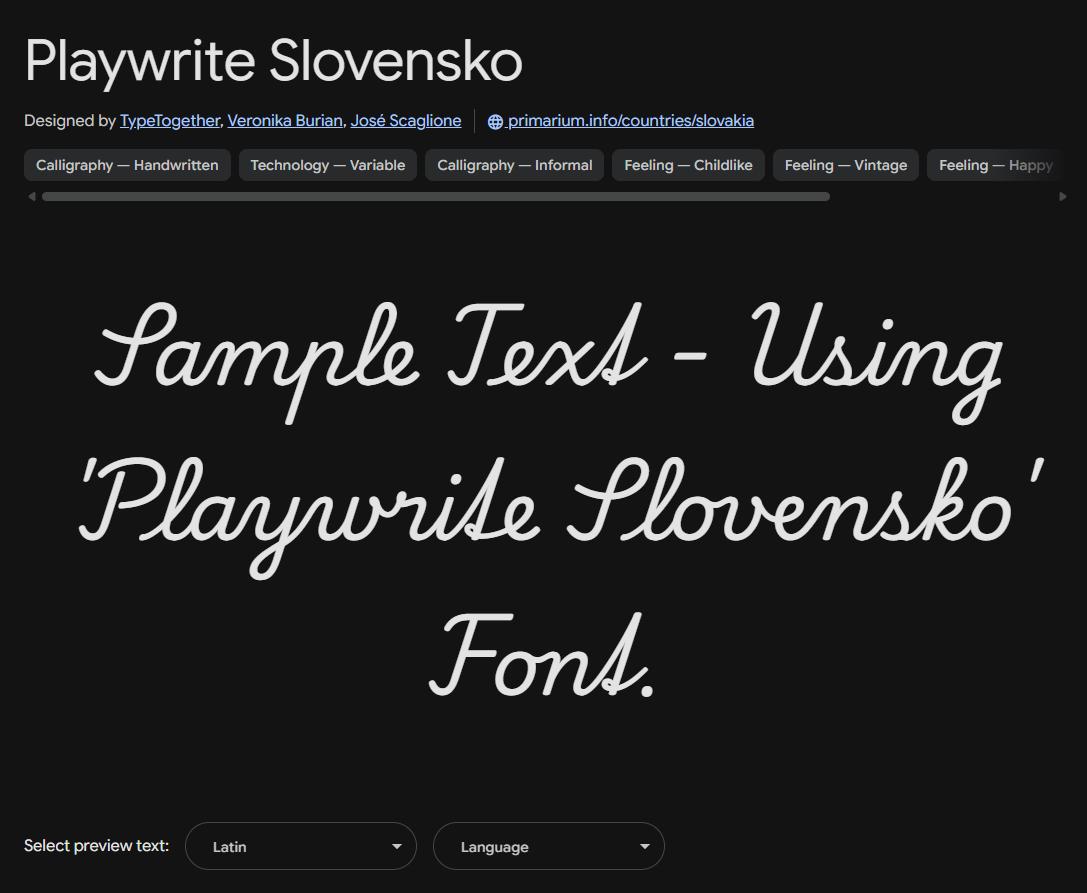
Playwrite Slovensko, a specialized typographic solution engineered by TypeTogether's Veronika Burian and José Scaglione, functions as a sophisticated interpolation model that bridges the gap between traditional Slovak primary school handwriting standards and modern digital infrastructure. Operating on a single-axis variable framework, the typeface leverages advanced OpenType features to simulate the rhythmic flow of manual cursive while maintaining the technical rigor required for high-fidelity screen rendering. By digitizing regional pedagogical scripts into a scalable, semantically rich format, Playwrite Slovensko optimizes educational accessibility, offering a dynamic typographic system where weight distribution and stroke connectivity are precisely tuned to reflect the evolving needs of contemporary digital literacy and instructional design.
The Playwrite Slovensko font family functions as a sophisticated intersection of modern variable technology and traditional pedagogical models, meticulously capturing the informal calligraphy of Slovakian primary education through its authentic handwritten structure. This variable typeface leverages dynamic interpolation to maintain a rugged yet fluid aesthetic, effectively bridging the gap between vintage classroom aesthetics and contemporary digital accessibility. The design architecture exudes a playful and happy feeling, characterized by its childlike spontaneity and optimistic stroke modulation that mirrors the tactile nature of early literacy development. By utilizing advanced OpenType features to simulate the organic variations of manual ink application, Playwrite Slovensko transforms digital interfaces into an evocative, rugged display of human-centric design, ensuring its joyful and informal calligraphic roots remain preserved within a high-performance typographic framework.
Playwrite Slovensko, a variable pedagogical script engineered by Veronika Burian and José Scaglione of TypeTogether, is fundamentally unsuitable for high-stakes industrial applications requiring rapid information retrieval, such as algorithmic trading interfaces or aerospace technical manuals. Because its glyph construction adheres to the fluid, interconnected ductus of Slovak primary education standards, the typeface introduces significant cognitive load and fails the rigorous legibility tests required for pharmaceutical labeling or legal compliance documentation. The single-axis variability, while allowing for stroke weight adjustment, does not alleviate the inherent character disambiguation issues present in its cursive ligatures, rendering it incompatible with OCR (Optical Character Recognition) workflows or machine-readable zones in government identification. Furthermore, in the context of high-density data visualization or financial auditing, the lack of a standardized x-height hierarchy and the emphasis on manual calligraphic flourishes compromise the accessibility requirements of WCAG 2.1, where distinct letterforms are vital for users with dyslexia or visual impairments.
Playwrite Slovensko is primarily designed as a primary education cursive font, making it less ideal for dense, long-form paragraphs where readability may suffer. Its high stroke modulation and joined letterforms can lead to visual fatigue, as eye-tracking studies often show cursive scripts require significantly more cognitive load for continuous reading compared to sans-serif alternates.
To create a balanced visual hierarchy, this script font pairs most effectively with clean, geometric sans-serifs or sturdy slab serifs. Utilizing a high x-height typeface like Montserrat or Roboto provides the necessary structural contrast to ground the fluid, variable-width strokes characteristic of the Playwrite series.
Yes, Playwrite Slovensko is specifically engineered to support the full range of Slovak orthography, including essential characters like ľ, š, č, and ŕ. The font utilizes precise OpenType anchors to ensure that carons and acute accents maintain mathematical optical balance regardless of the character's baseline positioning.
This typeface excels in branding projects that require a personalized, handcrafted aesthetic or a direct connection to educational themes. Its vector-optimized paths ensure clean rendering at large scales, allowing the unique cursive ligatures to maintain their aesthetic integrity during high-pressure offset printing processes.
In high-resolution print environments, Playwrite Slovensko displays remarkable clarity due to its well-defined outlines and smooth transitions. With a resolution of 1200 DPI or higher, the font's subtle variations in stroke weight become apparent, showcasing its sophisticated emulation of traditional ink-on-paper handwriting.
While not suitable for primary UI elements like buttons or menus, it works well as a decorative accent for headings or localized callouts. Technical limitations in anti-aliasing on low-density displays can cause the fine hairlines of script fonts to "break," potentially compromising the 4.5:1 contrast ratio required by WCAG accessibility standards.
The font offers a modern, informal alternative to traditional copperplate calligraphy, making it perfect for contemporary wedding invitations. Its distinct Slovak-style cursive loops provide a unique regional flair that differentiates it from generic script fonts through specific glyph constructions like the rounded uppercase "S".
Legibility tends to decrease at sizes below 12 points because the intricate connections between letters can become blurred or indistinct. To mitigate "clogging" of counters and apertures at small scales, designers should apply positive tracking to account for the font's organic kerning pairs.
Playwrite Slovensko is specifically designed to reflect the handwriting standards taught in Slovakian schools, making it an excellent pedagogical tool. Its design follows the "continuous stroke" philosophy, which assists students in developing fine motor skills and proper letter formation sequences within the Latin script framework.
The variable weight support allows designers to fine-tune the visual density of the text to match specific layout constraints. By manipulating the 'wght' axis in the font's metadata, users can achieve a custom "optical size" effect that balances the script's presence against other graphical elements without switching font files.